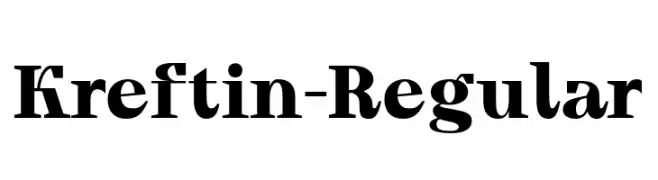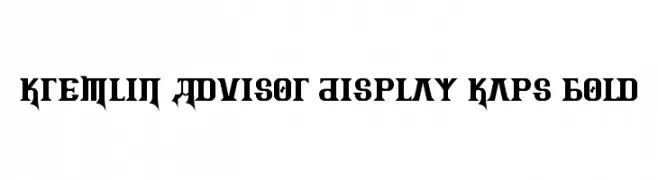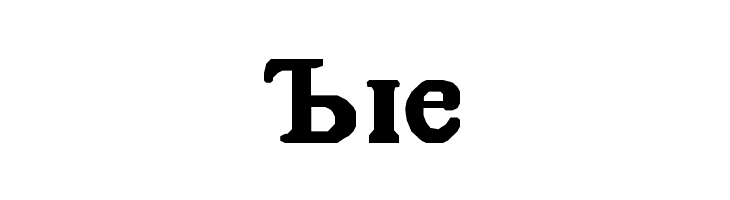
A bold, serif font with strong strokes and a modern twist.
A bold, geometric font with sharp, angular lines and a decorative style.
A bold, geometric font with a modern yet traditional flair.
A bold, Gothic-inspired font with sharp, angular lines and intricate detailing.
A bold, decorative font with high contrast and intricate flourishes.
A bold, geometric font with a Soviet-era aesthetic and strong, angular lines.
A bold, stylized serif font with a strong and authoritative presence.
A bold, Eastern European-inspired font with strong, angular strokes.
An ornate, decorative font with Eastern European influences and intricate details.
A bold, high-contrast font with ornate serifs and dramatic flourishes.